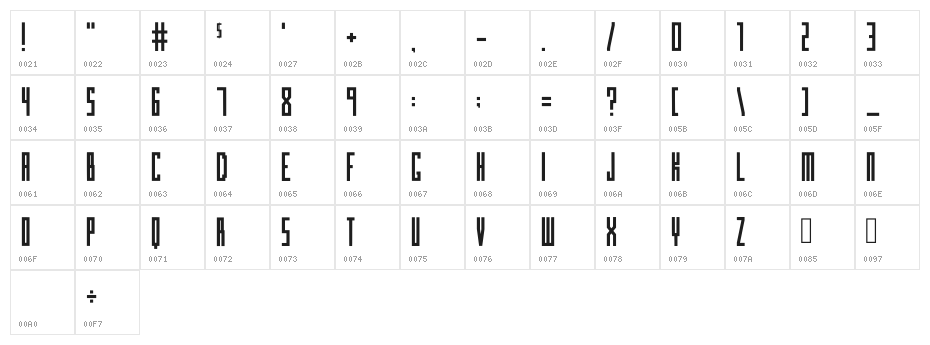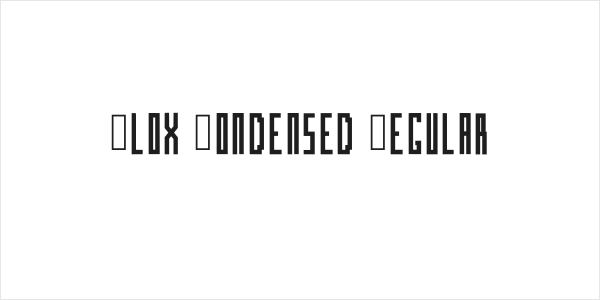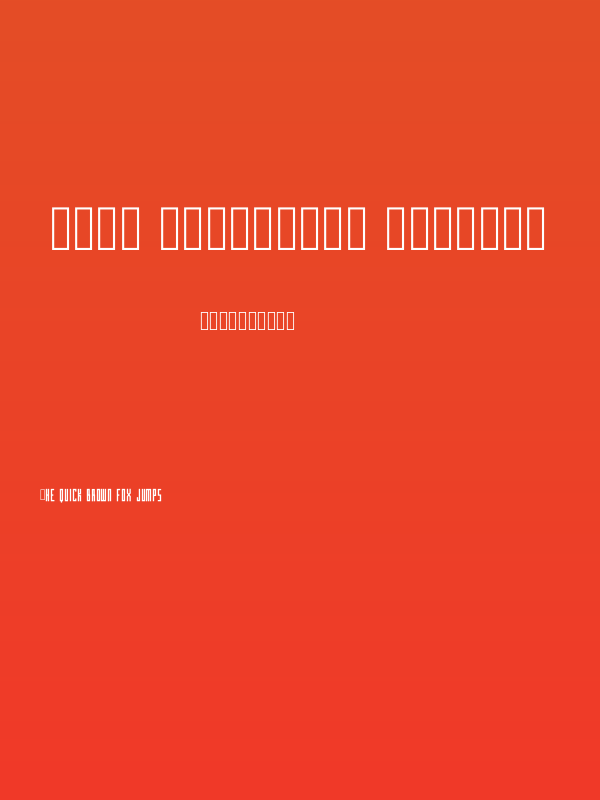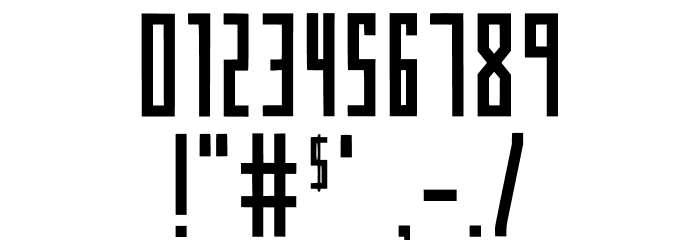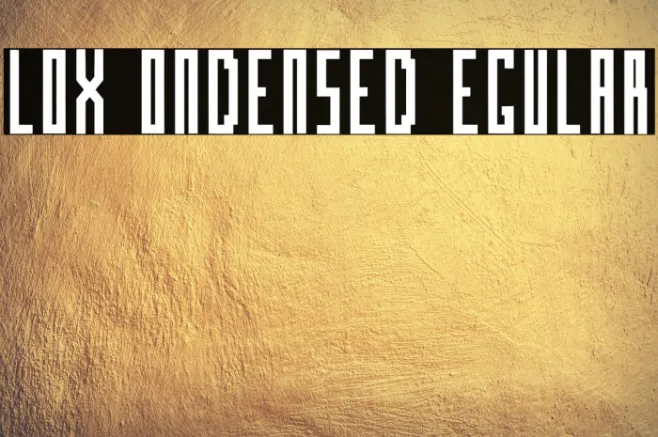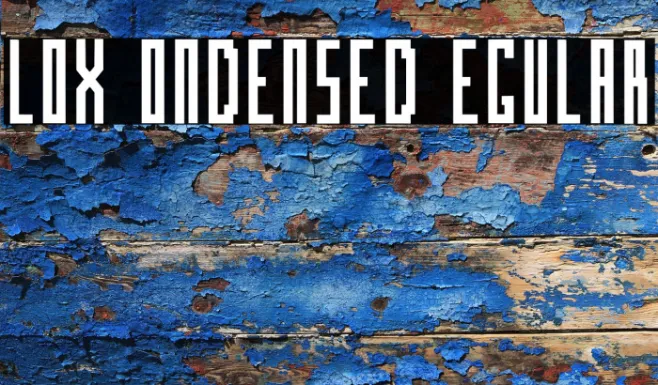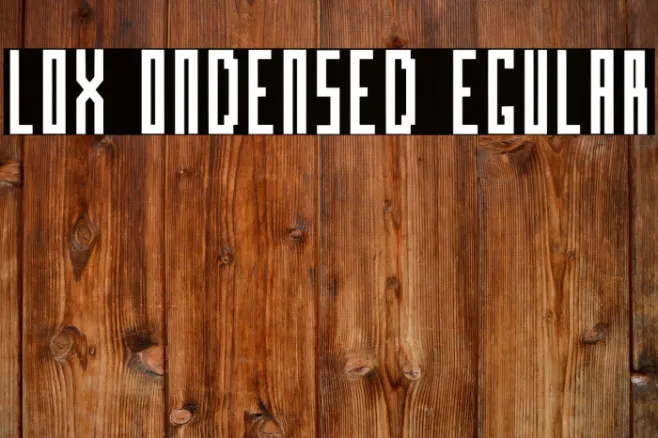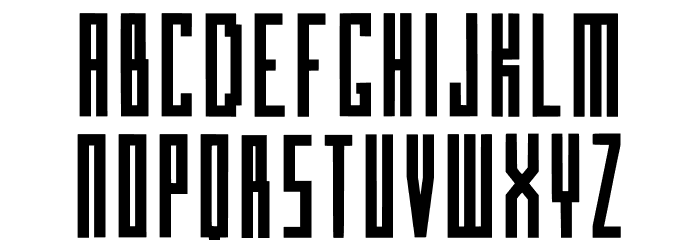
Blox Condensed Regular Font
Blox Condensed Regular Description
This font features a bold, geometric design with a condensed structure, emphasizing vertical lines and sharp angles. The characters are uniformly tall and narrow, creating a striking and modern appearance. The uppercase letters are particularly prominent, with a block-like aesthetic that conveys strength and stability. The numerals and special characters maintain this cohesive style, ensuring consistency across all text elements. This font is ideal for making a strong visual impact, with its clean lines and minimalistic approach.
| Proposed Projects | Ideal for posters, headlines, branding, and any project requiring a bold, modern look. |